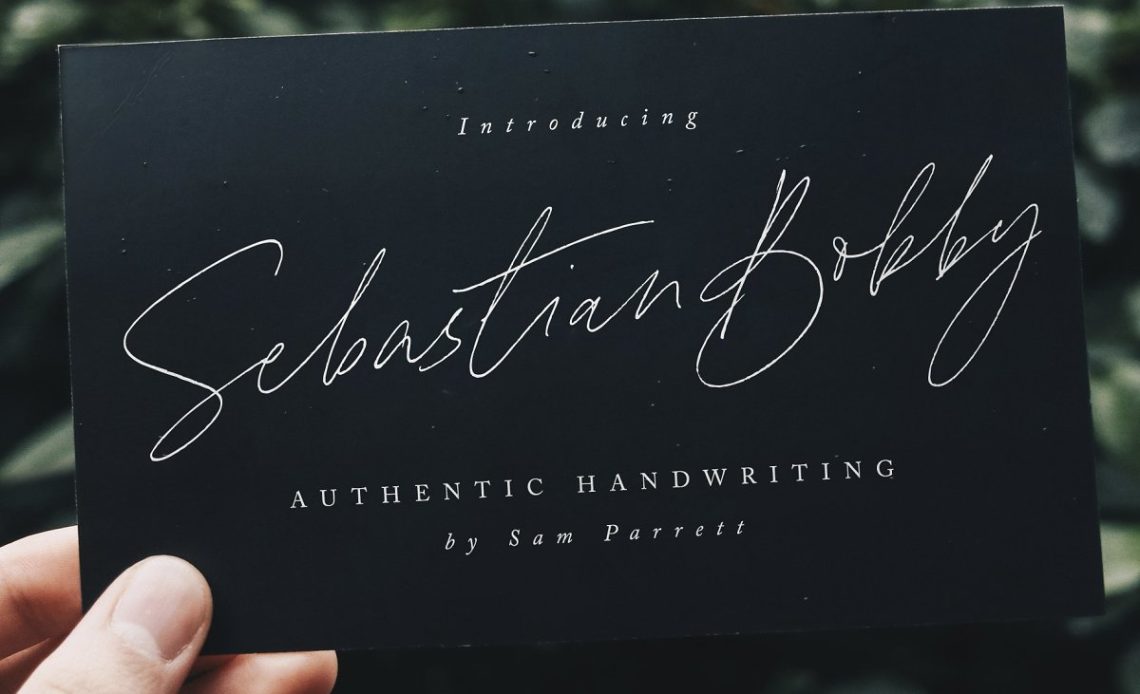
Looking for the best font for marquee letters? Look no further than Sebastian Bobby Handwritten Font, the perfect choice for anyone seeking a truly authentic and organic script font. Created by renowned designer Sam Parrett, this font is crafted using a real fountain pen to achieve a natural and flowing handwriting style that is perfect for a wide range of projects.
Sebastian Bobby features 78 custom ligatures that allow you to achieve those free-flowing pen strokes that give handwriting its distinctive character. This font is perfect for handwritten quotes, signature-style logos, stylish branding projects, and hand-crafted product and stationery designs.
In addition to its unique style, Sebastian Bobby is also incredibly versatile. The font family includes four different font files provided in both TTF and OTF formats. The standard version of the font contains both upper and lowercase characters, numerals, and a large range of punctuation. The alternate version of the font features a completely new set of both upper and lowercase characters, making it the perfect choice if you want to avoid letters looking the same each time to recreate a custom-made style, or try a different word shape.
But that's not all - Sebastian Bobby also includes slanted versions of both regular and alternate fonts. These can be used for a more italicized, fast-hand flow to your text, making it perfect for creating unique and eye-catching designs.
So if you're looking for a font that is both stylish and versatile, look no further than Sebastian Bobby Handwritten Font. It's the perfect choice for anyone looking to add a touch of natural, organic style to their designs.